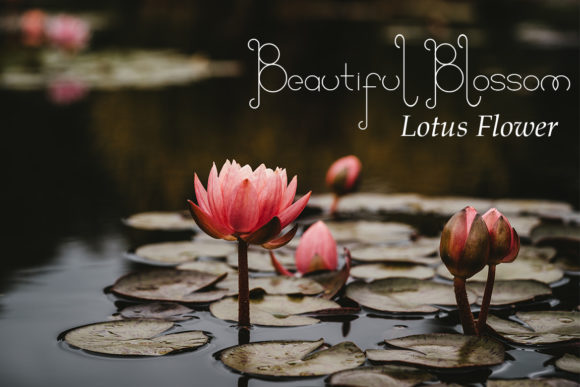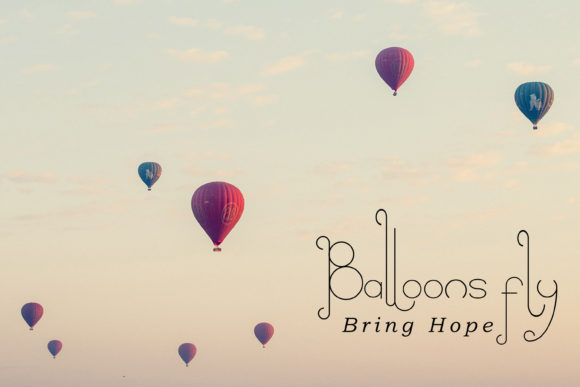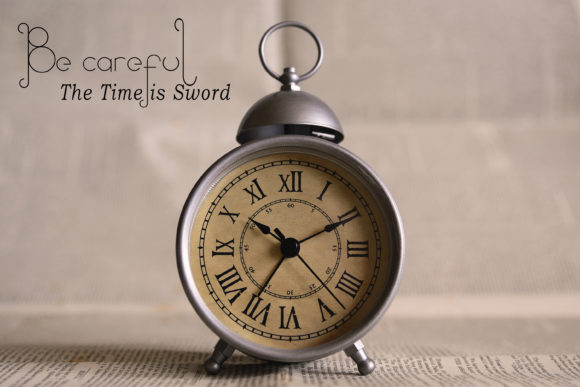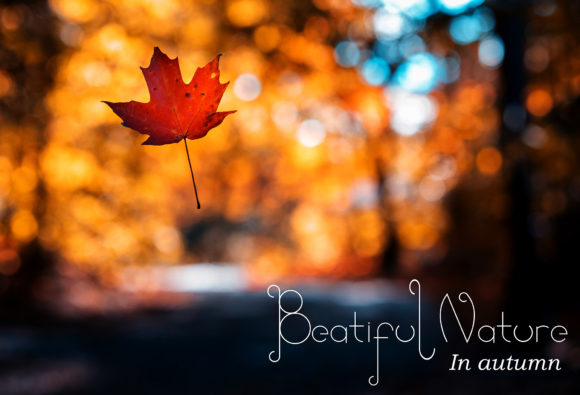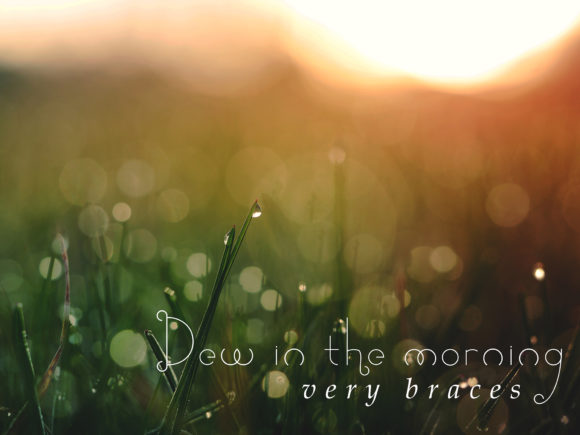
Bulleud Font: Elevate Your Designs with a Touch of Luxury
In the world of typography, fonts play a crucial role in conveying the tone and aesthetic of a design. For crafters and designers seeking to add a touch of luxury to their projects, the Bulleud font is an excellent choice. This modern script font boasts a fresh feel, making it perfect for a wide range of applications, from branding and advertising to packaging and editorial design.
The Characteristics of Bulleud Font
The Bulleud font is distinguished by its circular characteristics, which lend it an air of elegance and sophistication. Its smooth, flowing lines and rounded edges create a sense of harmony and balance, making it an ideal choice for designs that require a luxurious feel. The font’s modern script style ensures that it remains legible and versatile, suitable for use in various contexts.
Why Choose Bulleud Font?
So, what sets the Bulleud font apart from other script fonts on the market? Here are a few reasons why designers and crafters are drawn to this elegant typeface:
- Elegance and Sophistication: The Bulleud font exudes luxury and refinement, making it perfect for high-end branding, packaging, and editorial projects.
- Versatility: Its modern script style and circular characteristics ensure that the font remains legible and adaptable, suitable for use in a variety of design contexts.
- Fresh and Modern Feel: The Bulleud font has a distinctly contemporary feel, making it an excellent choice for designers seeking to create fresh and engaging designs.
Using Bulleud Font in Your Designs
So, how can you incorporate the Bulleud font into your designs? Here are a few ideas to get you started:
- Branding and Logo Design: Use the Bulleud font to create elegant and sophisticated brand identities that convey luxury and refinement.
- Packaging Design: Add a touch of luxury to your packaging designs with the Bulleud font, perfect for high-end products and premium brands.
- Editorial Design: Use the Bulleud font in editorial designs, such as magazines, newspapers, and blogs, to add a touch of elegance and sophistication.
Tips for Working with Bulleud Font
To get the most out of the Bulleud font, here are a few tips to keep in mind:
- Pair with Contrasting Fonts: Combine the Bulleud font with contrasting fonts to create visual interest and hierarchy in your designs.
- Experiment with Font Sizes: Play with different font sizes to create emphasis and add depth to your designs.
- Use in Combination with Images: Use the Bulleud font in combination with high-quality images to create visually stunning designs.
In conclusion, the Bulleud font is a versatile and elegant script font that is perfect for designers and crafters seeking to add a touch of luxury to their projects. Its modern feel, circular characteristics, and smooth lines make it an excellent choice for a wide range of design applications. Whether you’re working on branding, packaging, or editorial design, the Bulleud font is sure to elevate your designs and leave a lasting impression.